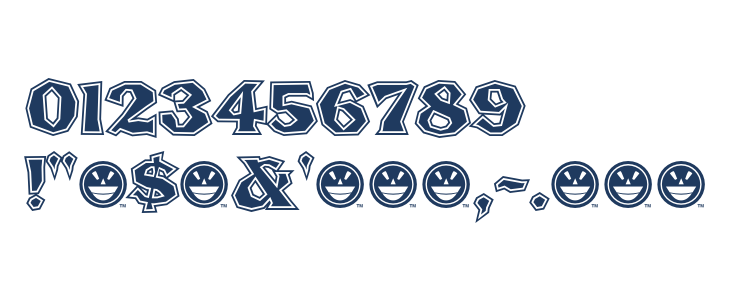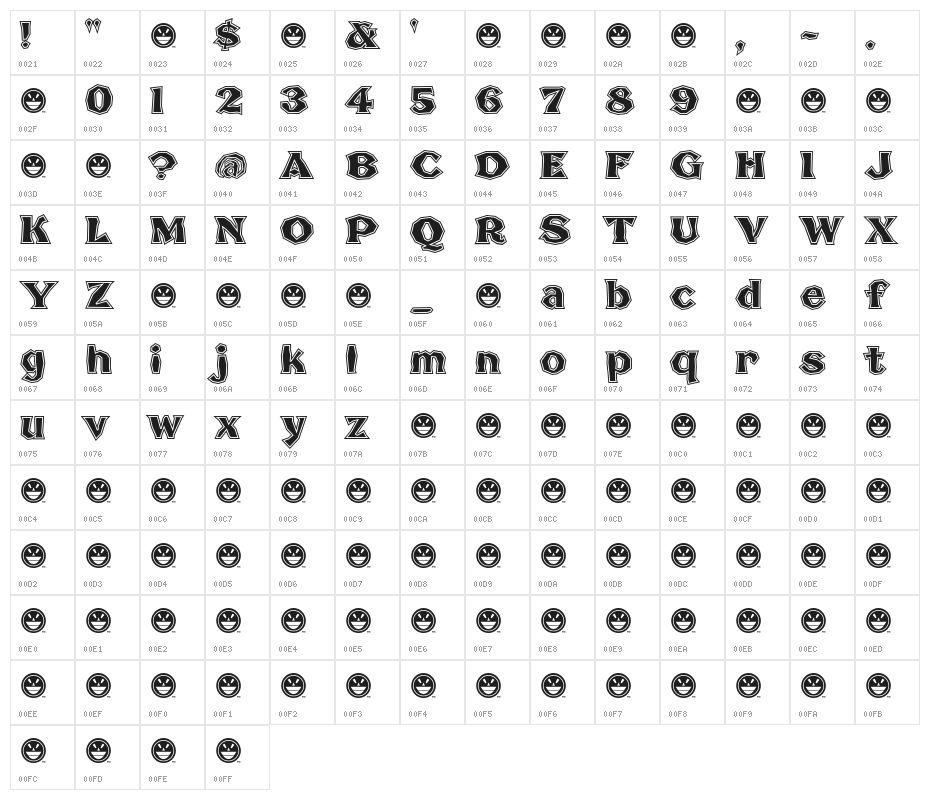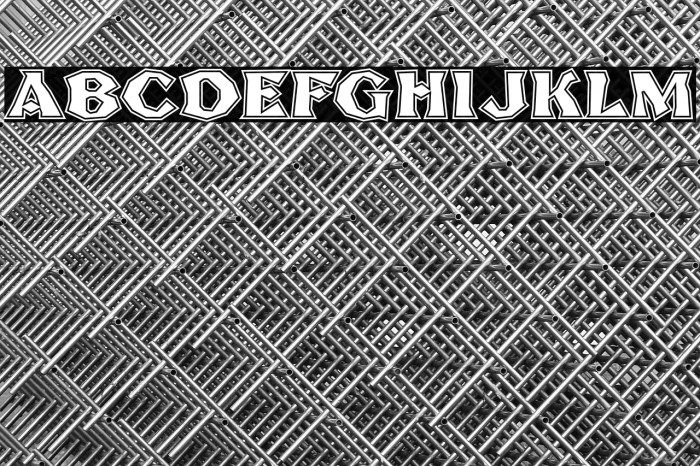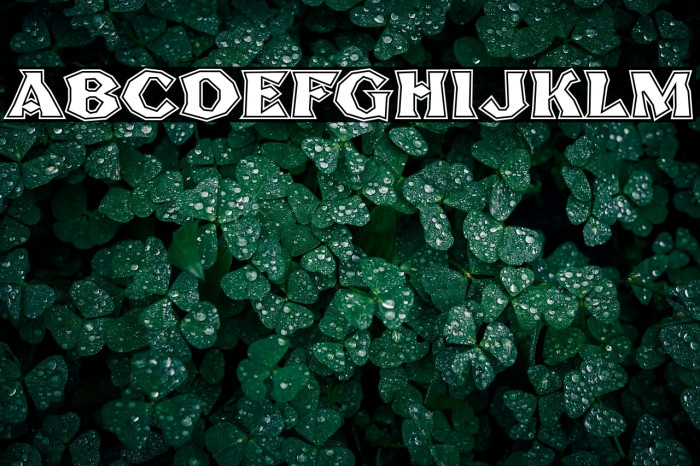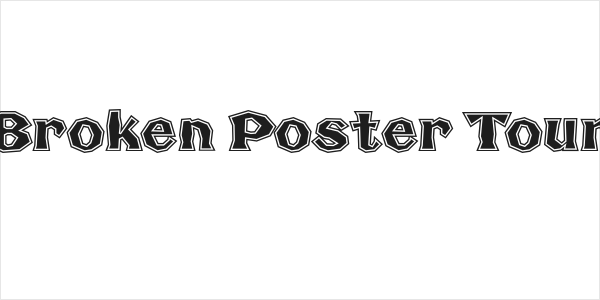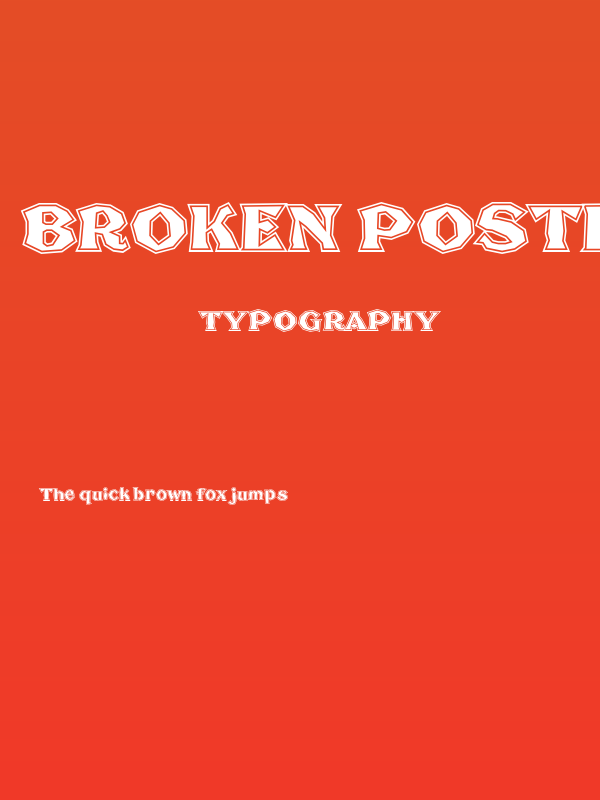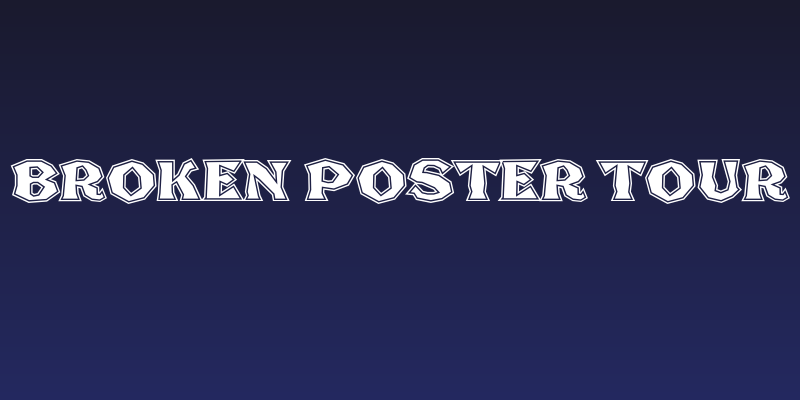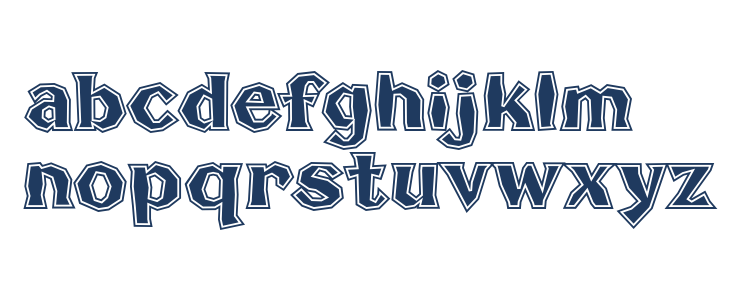
Broken Poster Tour Font
Broken Poster Tour Description
This font features a bold, edgy design with a distinct outline that gives each character a three-dimensional appearance. The uppercase and lowercase letters are stylized with sharp angles and a slightly irregular form, adding a dynamic and rebellious feel. The numbers and special characters maintain this bold, outlined style, ensuring consistency across all glyphs. The font's unique aesthetic makes it stand out, perfect for projects that require a strong visual impact.
| Name | Broken Poster Tour |
| Font Family | BrokenPosterTour |
| Overall Style | Modern, Edgy |
| Use Case | Headlines, Posters, Logos |
| Proposed Projects | Ideal for music posters, event flyers, branding for edgy products, or any design needing a bold statement. |